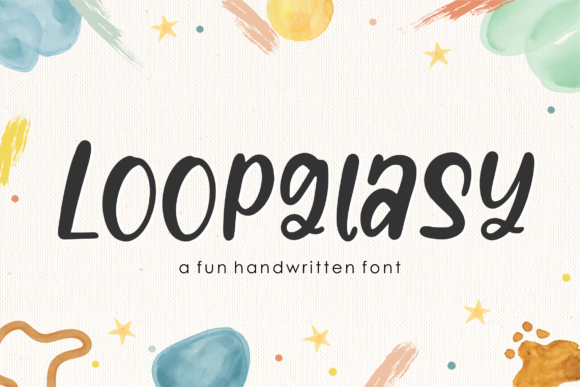
Step into a world of captivating designs with Loopglasy, the ultimate display font collection. Each stroke is a beautifully painted masterpiece, infused with an elegant touch that speaks volumes. Whether you're crafting captivating posters, creating eye-catching packaging, or adding a touch of panache to your social media presence, Loopglasy is the font that will elevate your creative vision.
Unleash the artist within and paint a world of endless possibilities. Loopglasy empowers you to express yourself in a vibrant and unforgettable way. Its versatility knows no bounds, seamlessly adapting to any project, big or small. From the ethereal glow of wedding invitations to the bold impact of magazine covers, Loopglasy transforms words into captivating works of art.
Immerse yourself in the world of Loopglasy, where creativity takes center stage. Let your imagination soar as you explore the limitless possibilities of this extraordinary font family. With Loopglasy, every design becomes a unique and captivating masterpiece, leaving an unforgettable impression on all who behold it.